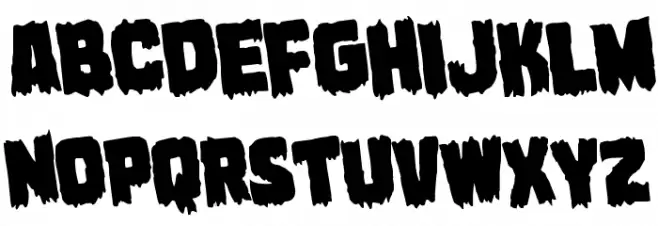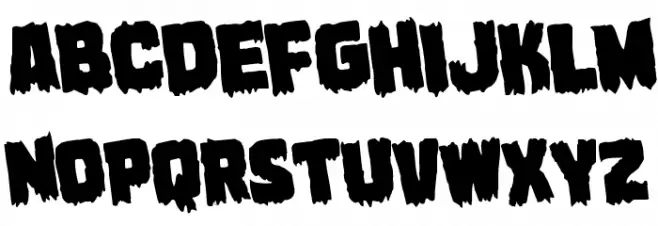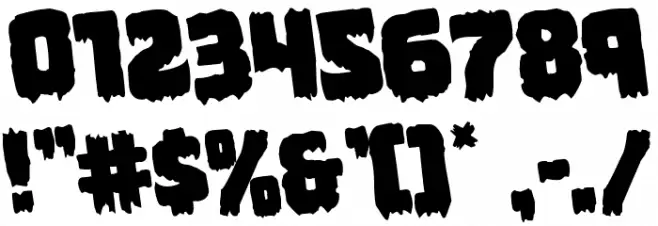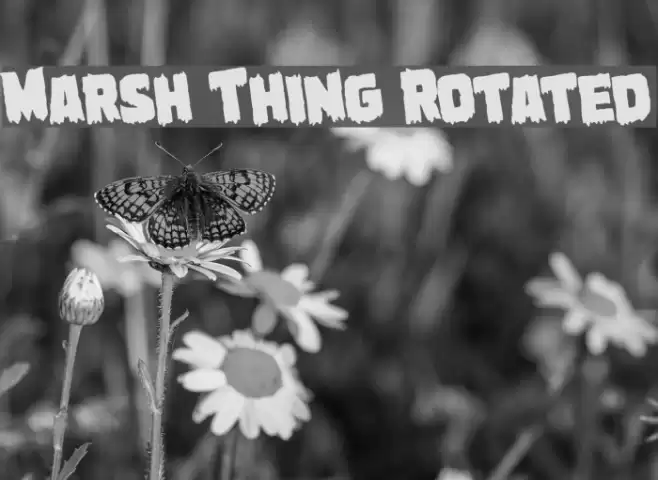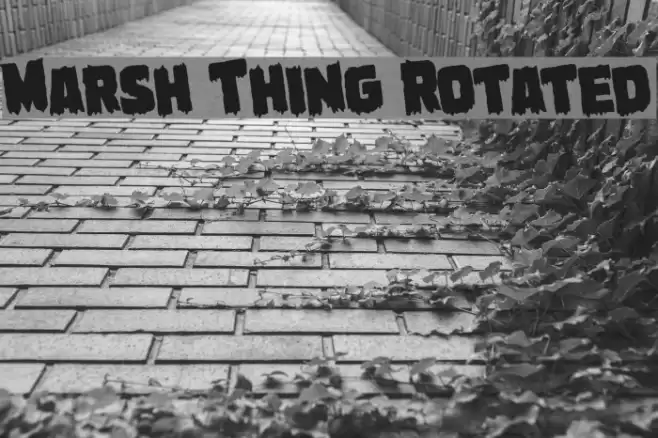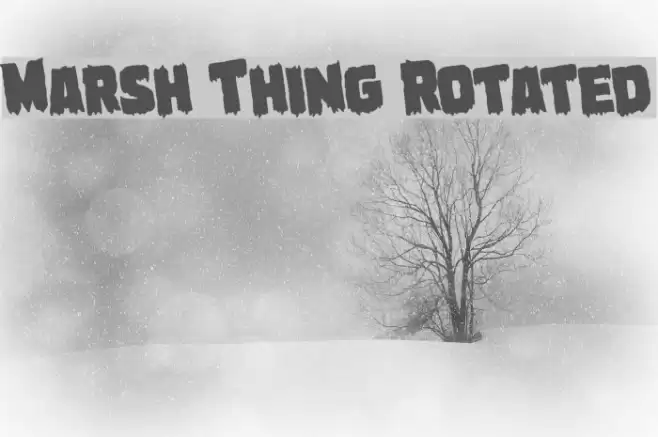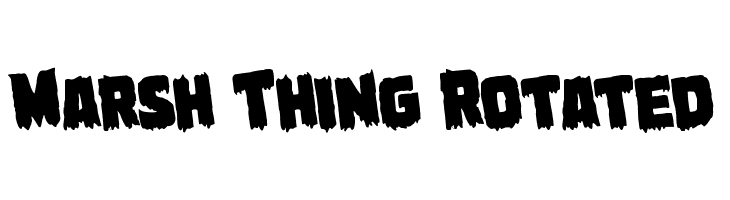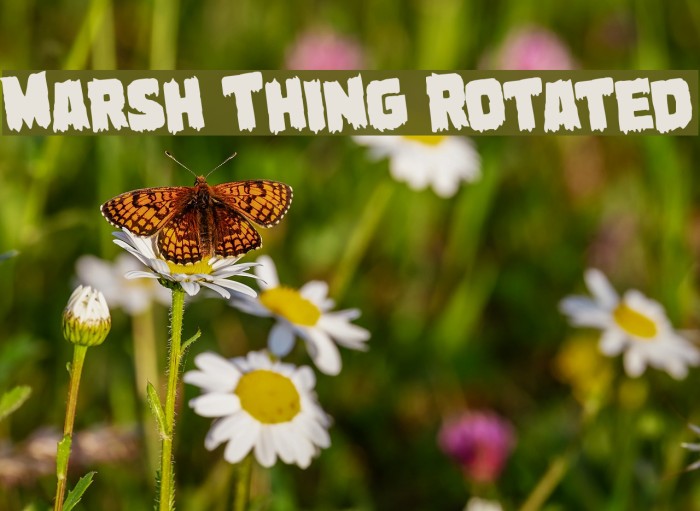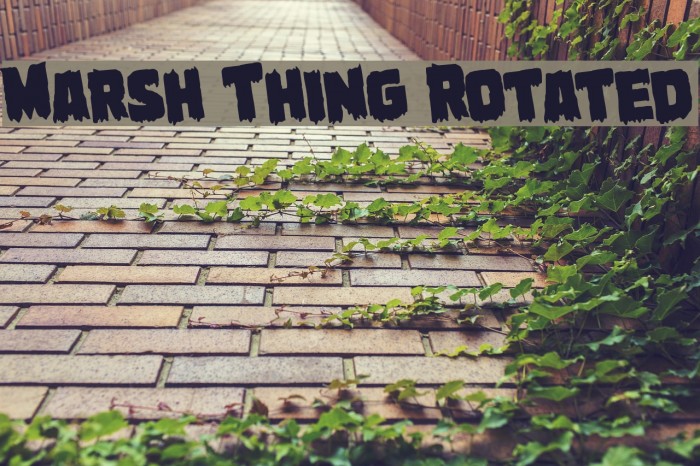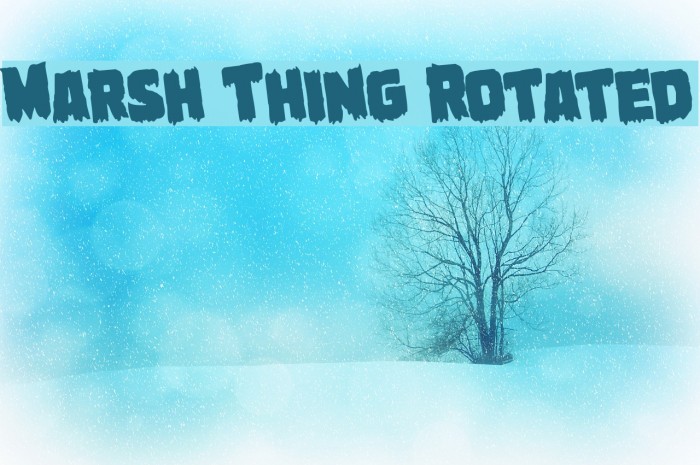
Marsh Thing Rotated
This font features a bold and rugged design, characterized by its jagged edges and uneven strokes, giving it a raw and organic appearance. The letters are heavily stylized, with a distressed look that suggests a sense of decay or erosion. This style is reminiscent of horror or thriller themes, making it ideal for projects that require a dramatic and eye-catching typeface. The uppercase and lowercase letters maintain a consistent style, while the numbers and special characters follow the same rugged aesthetic, ensuring a cohesive look across all text elements.
A bold, rugged font with jagged edges and a distressed, organic appearance.
- Proposed Projects: Ideal for horror movie posters, Halloween event flyers, edgy branding, or any project needing a dramatic and eye-catching typeface.
- Overall Style: Decorative